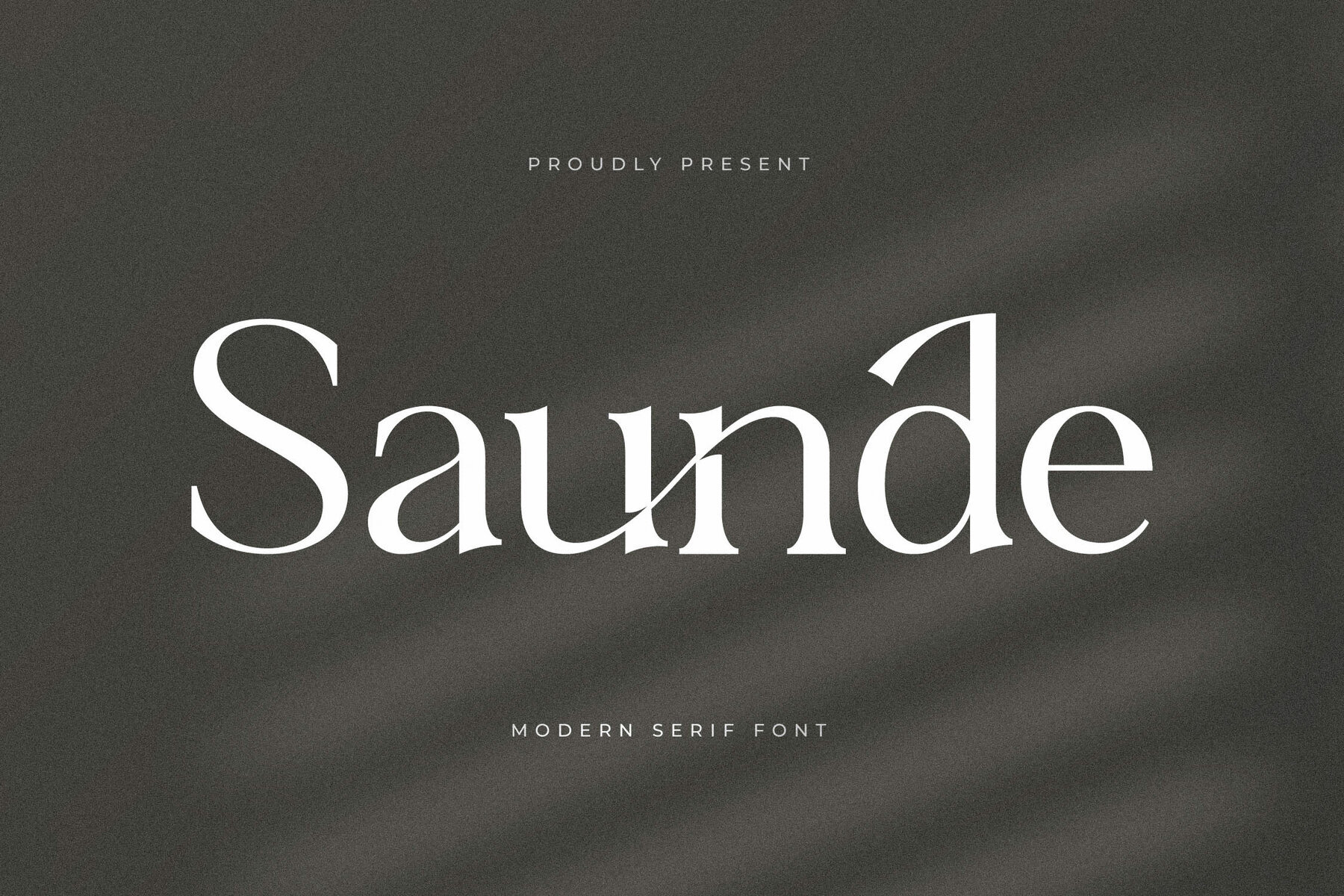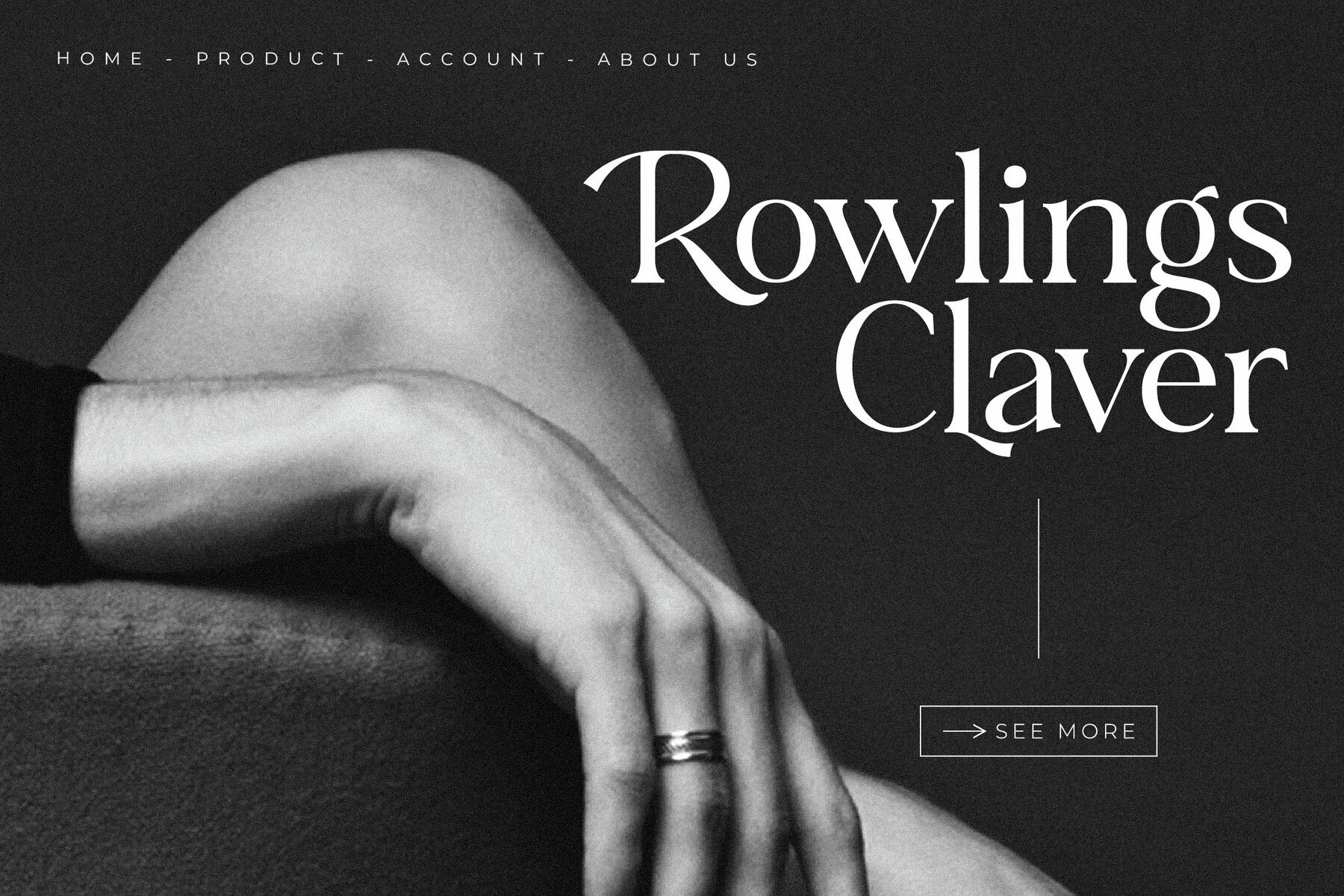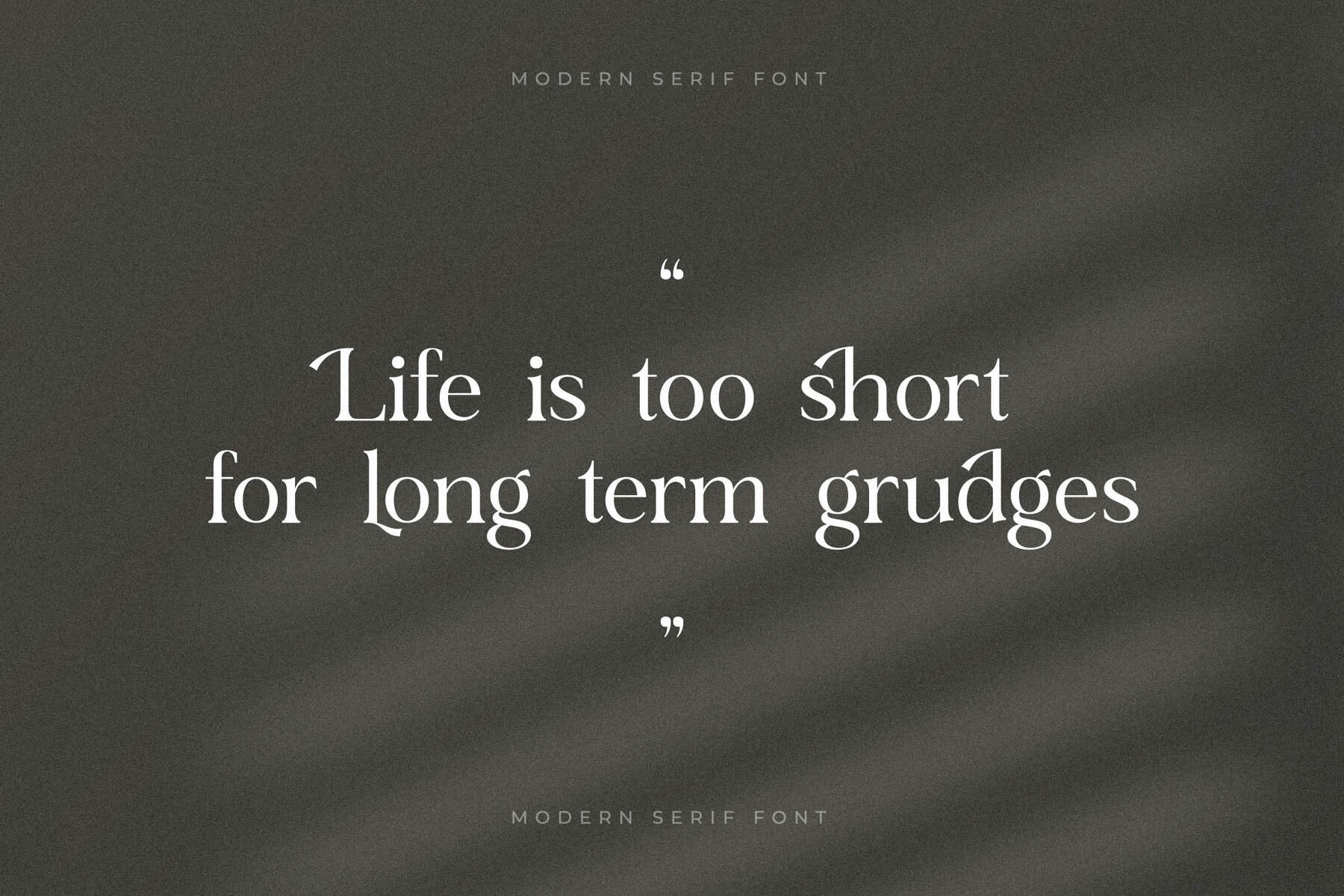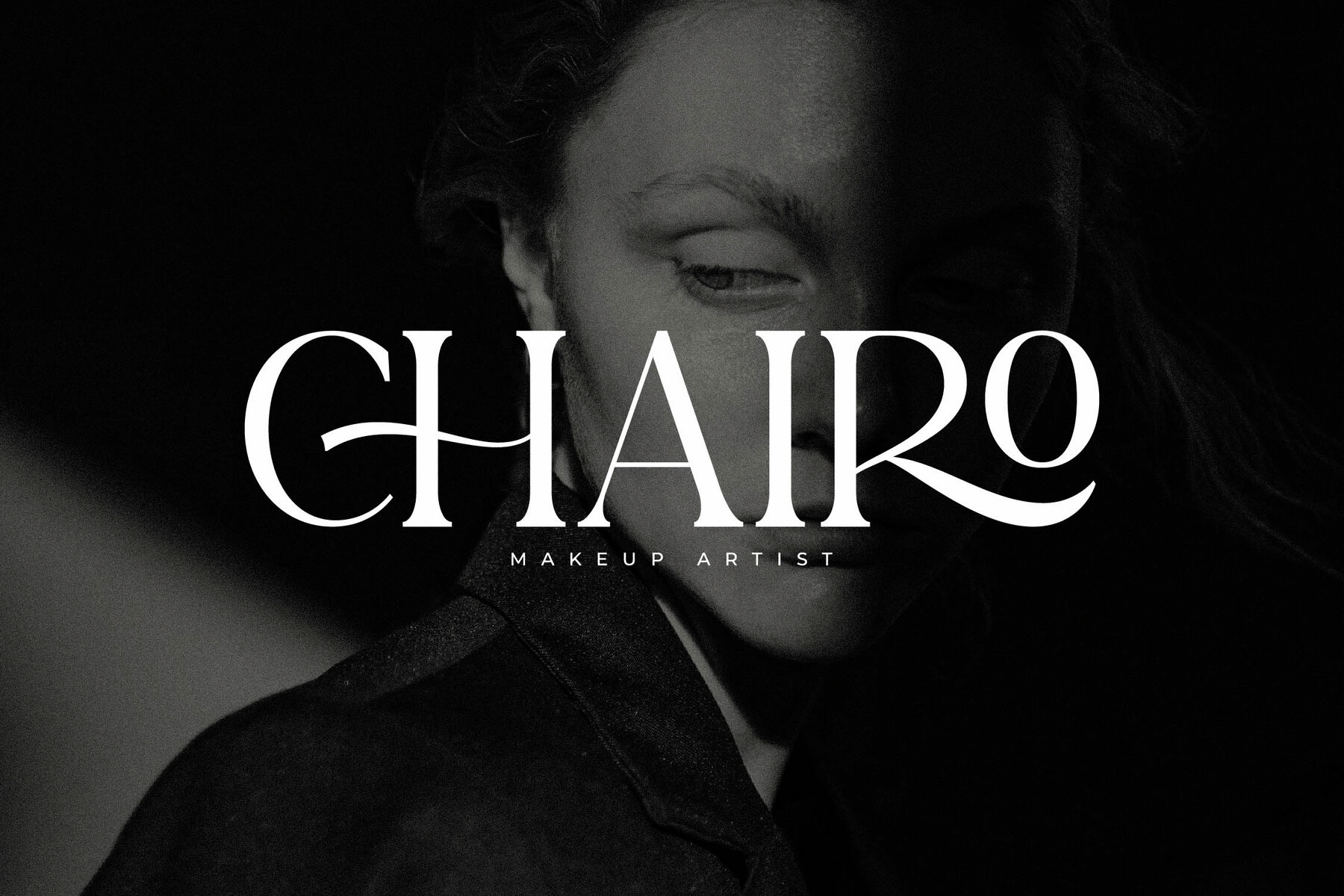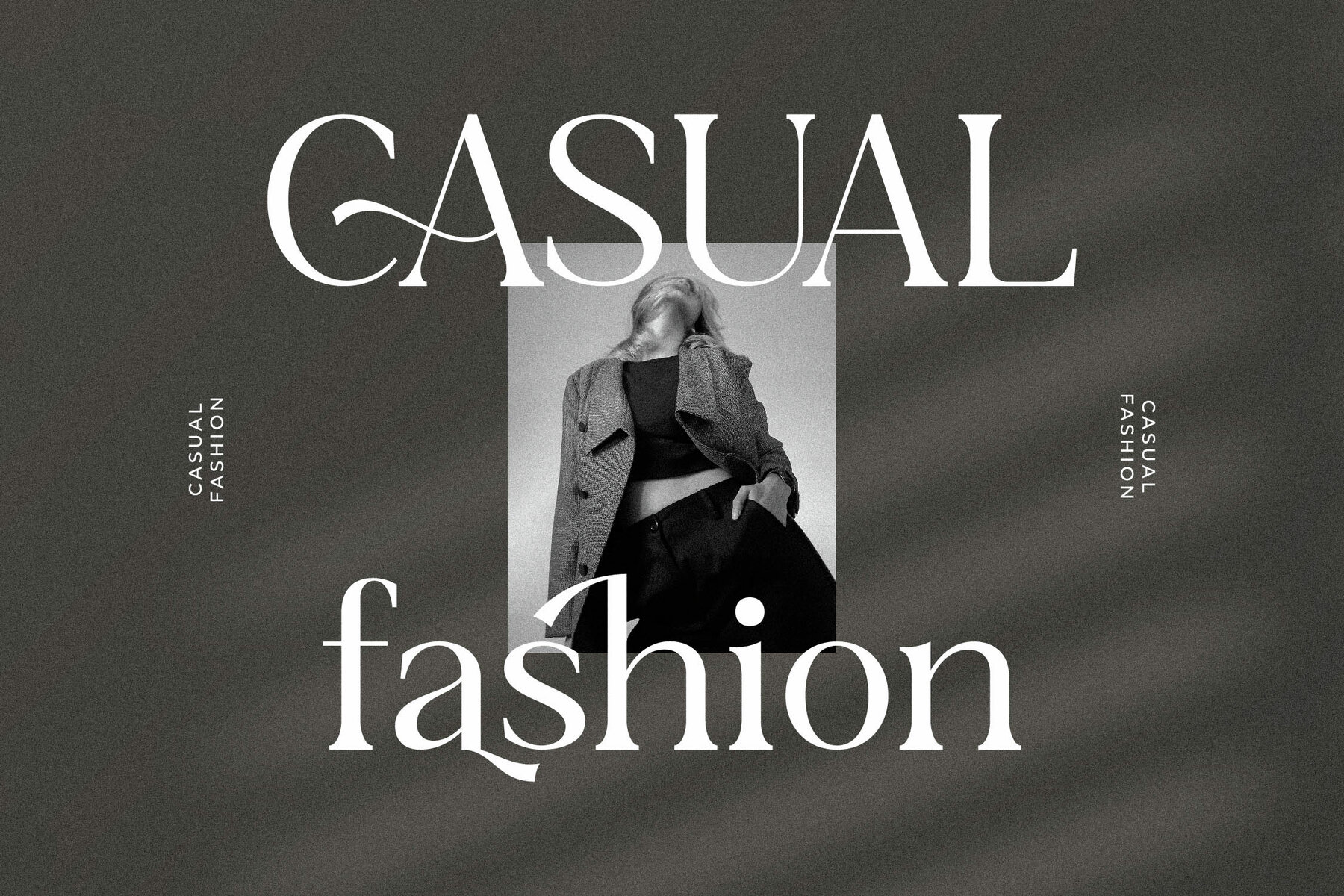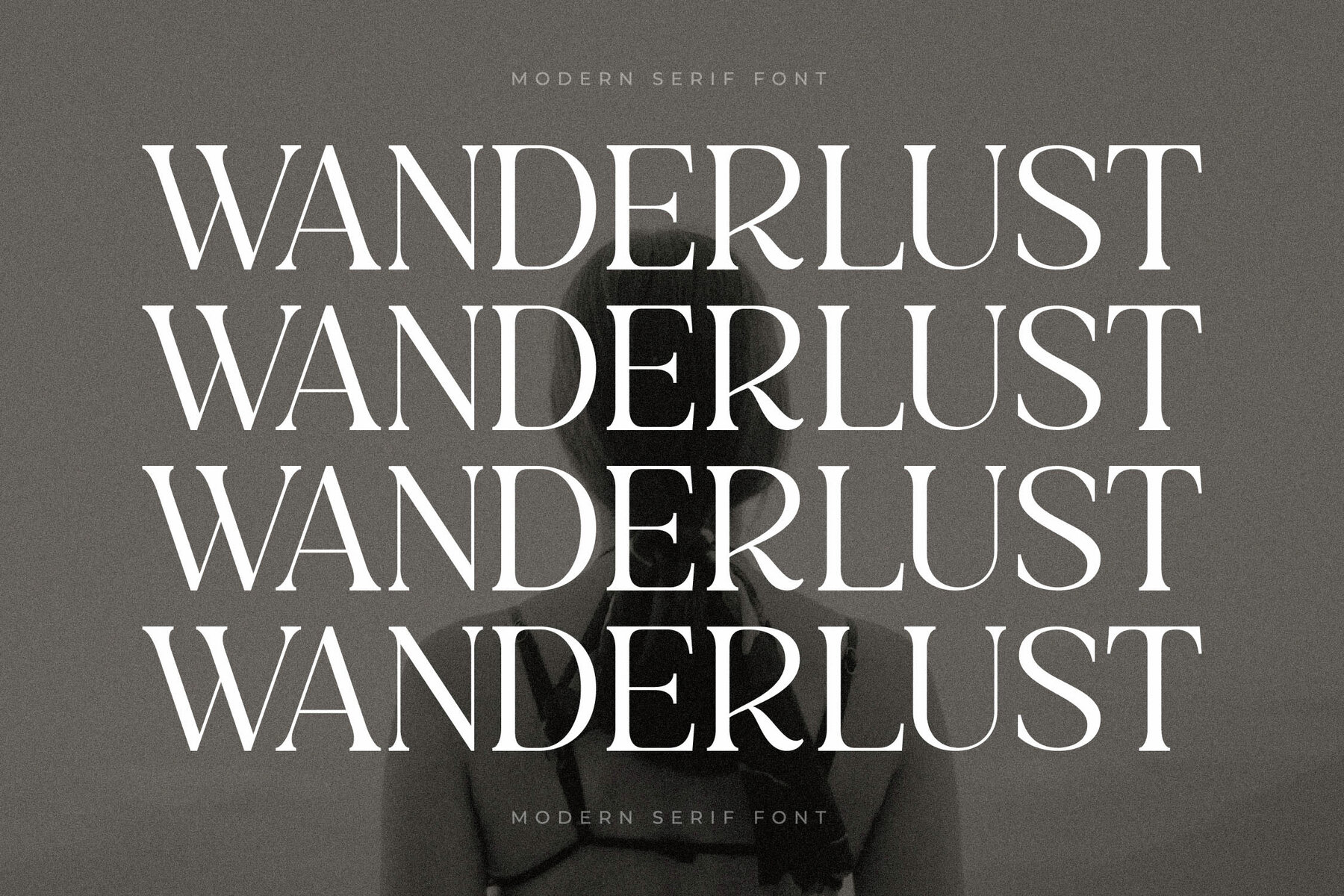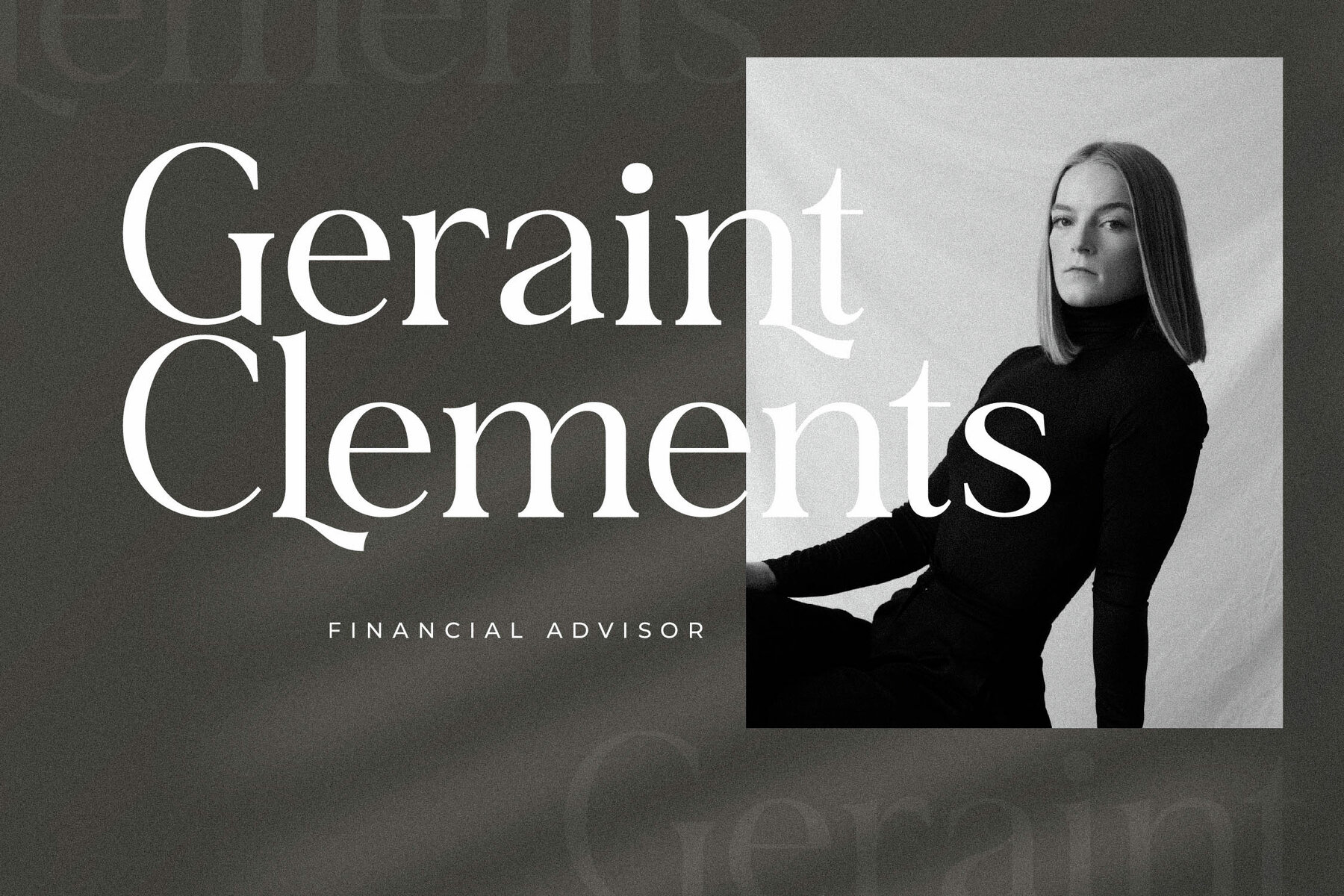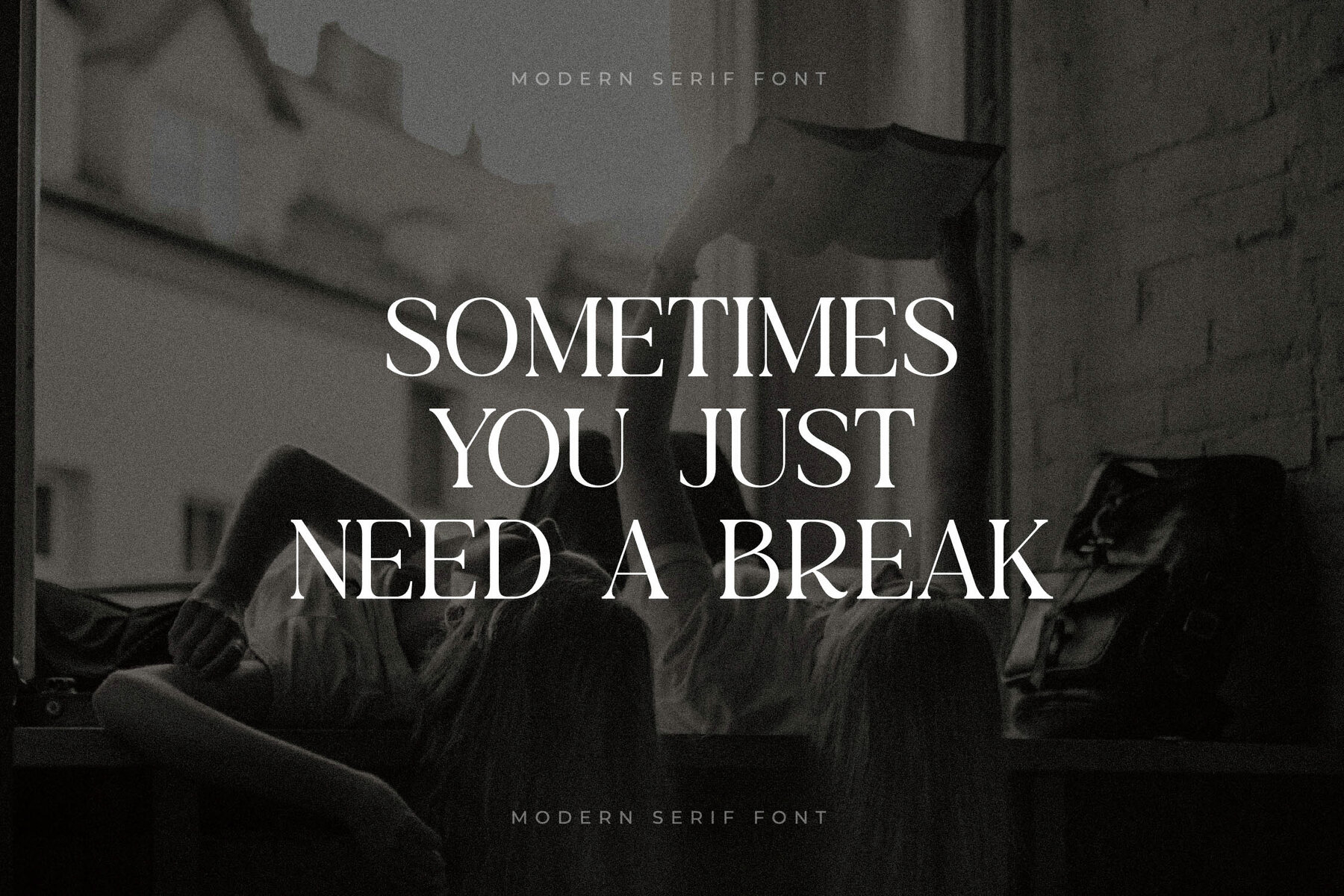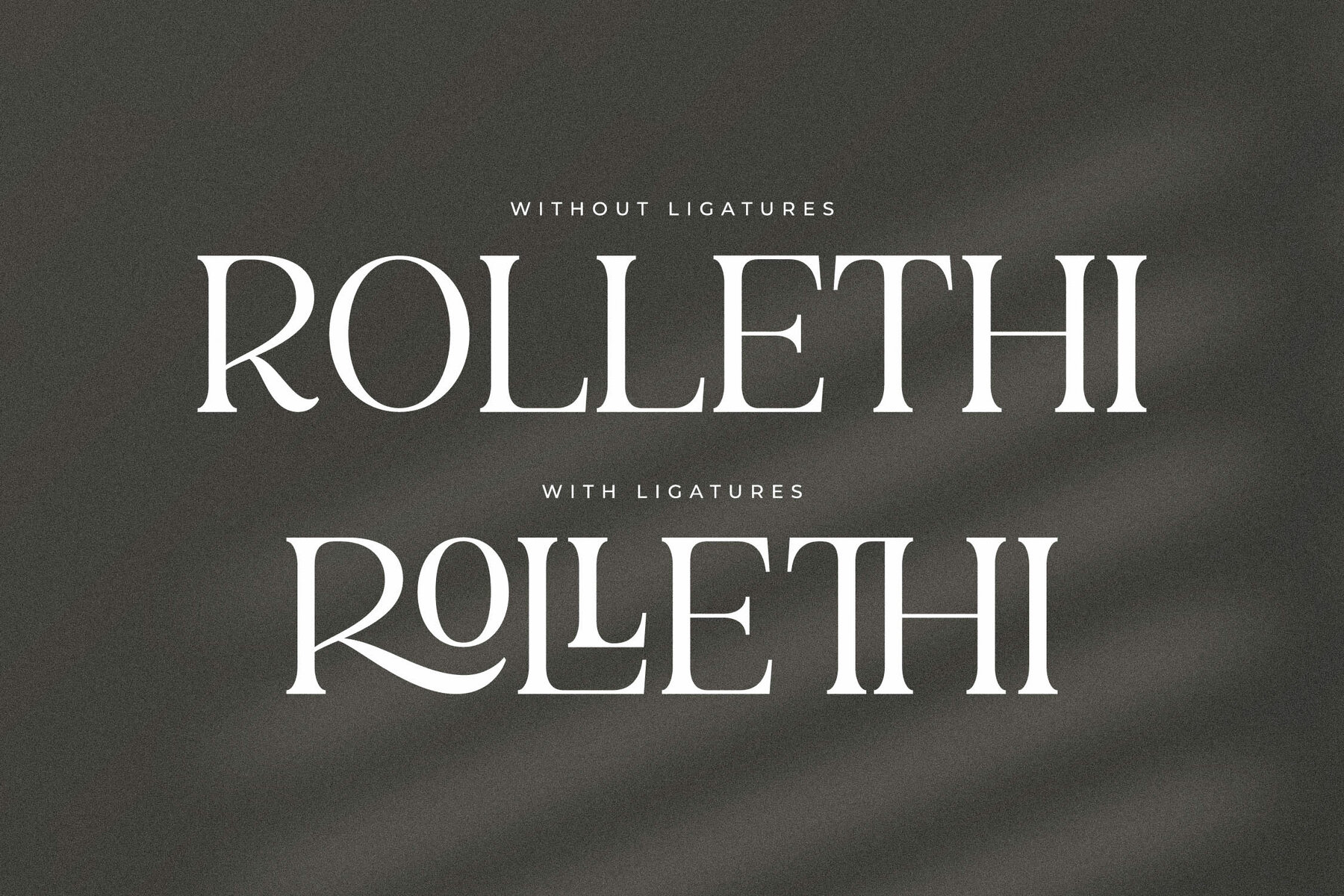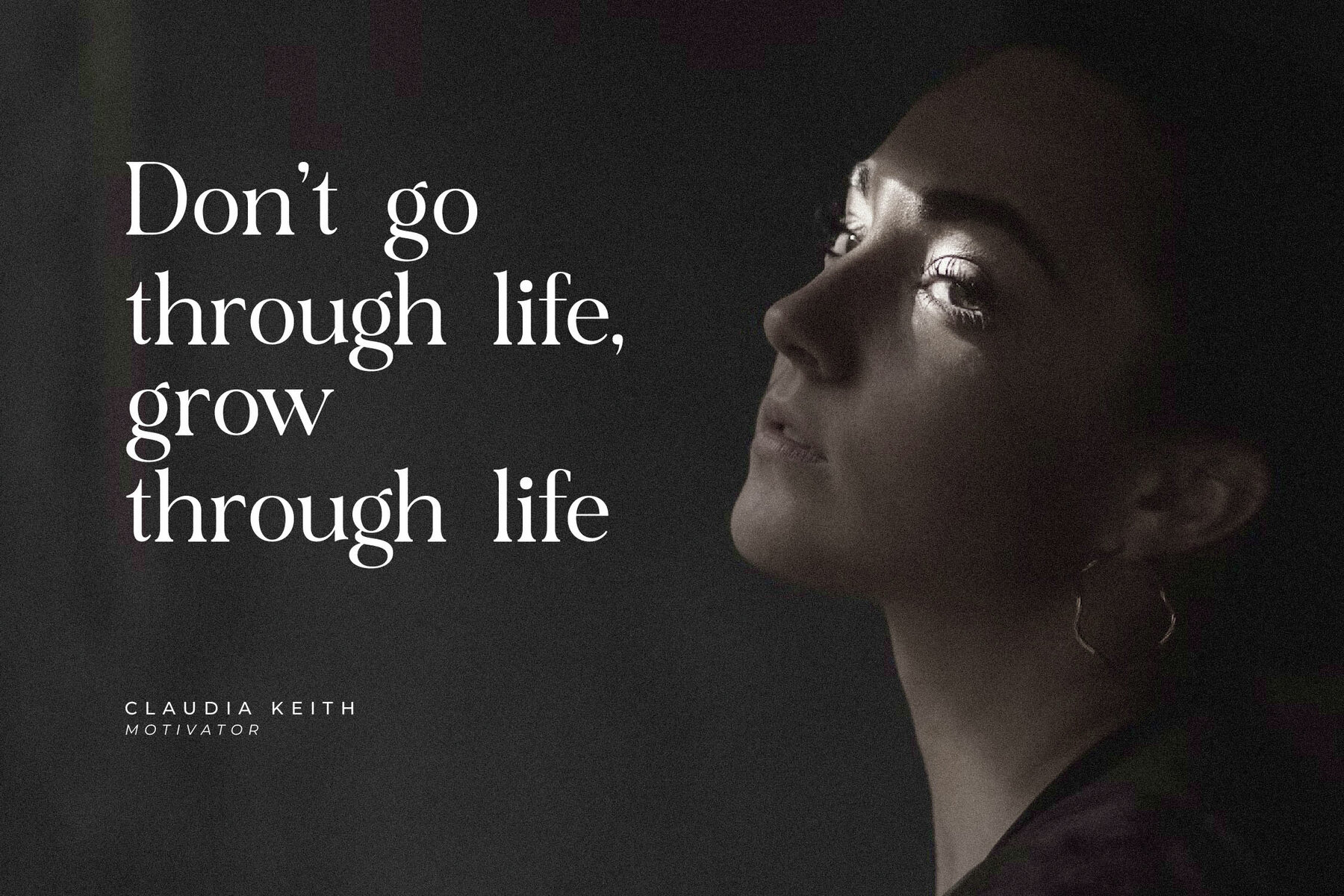
Saunde Font
Embrace sophistication with the Saunde typeface, a distinct creation by Storytype Studio. This serif typeface marries modern aesthetics with classic appeal, making it the perfect choice for crafting elegant and luxurious designs. Whether you're designing a logo, a book or movie title, or fashion brand identity, Saunde adds a touch of refinement and style. Its versatility extends to magazines, clothing designs, lettering projects, and quotes, offering endless creative possibilities.Saunde Typeface: A Blend of Modern Elegance and Classic Charm
Features of Saunde Typeface